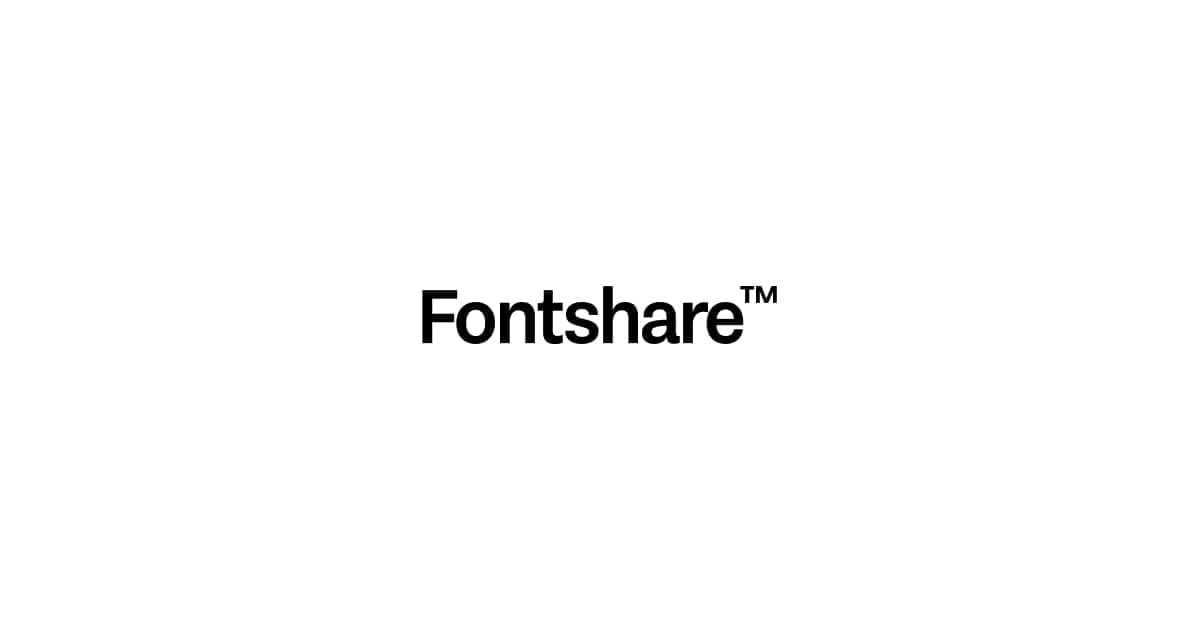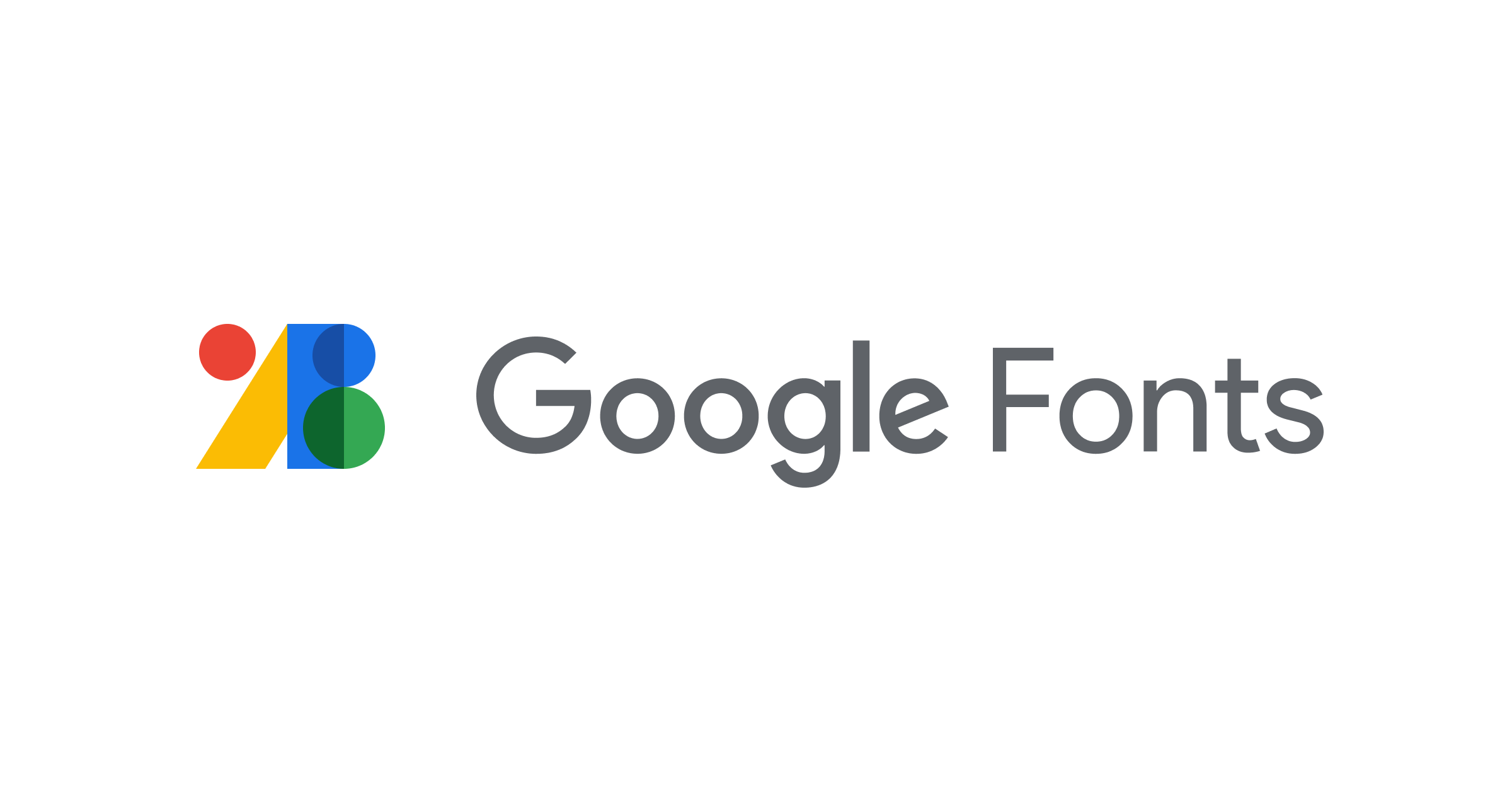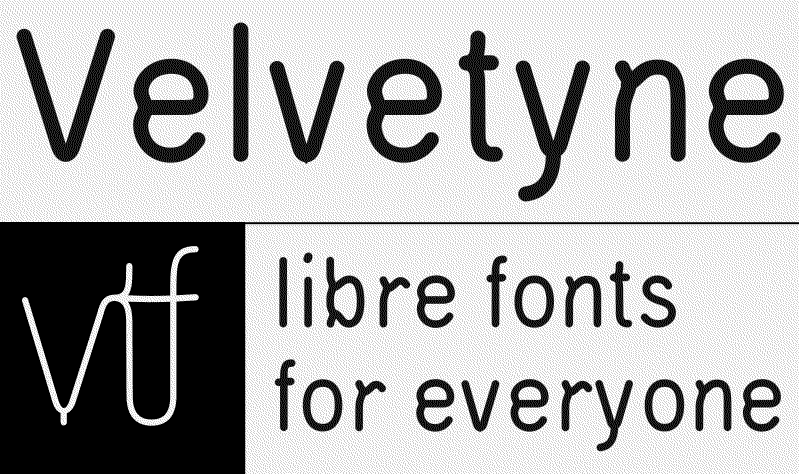
Best Free Font Resources for Designers
6 curated free fonts
Google Fonts and Fontshare are the best free font resources for designers who need web-ready typefaces with clear commercial licensing. This list also covers DaFont, Velvetyne, Befonts, and Atipo — libraries and foundries where free cuts are worth understanding before client delivery.
atipo
Atipo® is an independent digital typeface foundry and graphic design studio based in Gijón
Befonts
Huge library of cool fonts for any needs
DaFont
DaFont is a popular platform where you can find and download a wide range of free fonts.
Fontshare
Fontshare is a platform where you can download free, high-quality fonts for your projects.
Why it's here: Free-for-commercial-use fonts from a quality-focused foundry collective.
Google Fonts
Google Fonts is a library of free and open-source fonts that you can use in your projects.
Why it's here: Free, open-licensed fonts that are easy to self-host or embed.
Velvetyne
Velvetyne is a collaborative type foundry that focuses on open-source and experimental fonts.
Why it's here: Open-source fonts with an experimental, characterful point of view.
- UI and web body text → start with Google Fonts or Fontshare for well-hinted, web-ready families.
- Display and branding experiments → browse Velvetyne, Atipo, or Befonts for distinctive free cuts.
What are the best free font resources for designers?
Google Fonts and Fontshare lead most free font resource lists for designers — both offer large libraries with open-source licensing. DaFont, Velvetyne, and Befonts are strong alternatives for display and experimental typefaces.
What is the best free font library for web design?
Google Fonts is the default for web projects — huge selection, easy embedding, and clear open-source licensing. Fontshare is a strong alternative with high-quality contemporary families.
What free foundries do designers recommend?
Velvetyne focuses on open-source experimental type. Atipo and Fontshare publish quality free cuts alongside premium families. Typewolf helps you discover pairings once you pick a base font.
How many fonts should I test before choosing one?
Shortlist three to five candidates in context — headlines, body paragraphs, and UI labels at real sizes. Free libraries make experimentation cheap, but commit to one family pair per project.